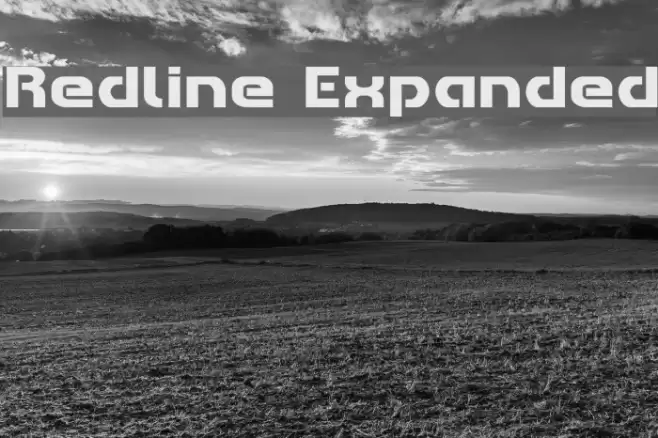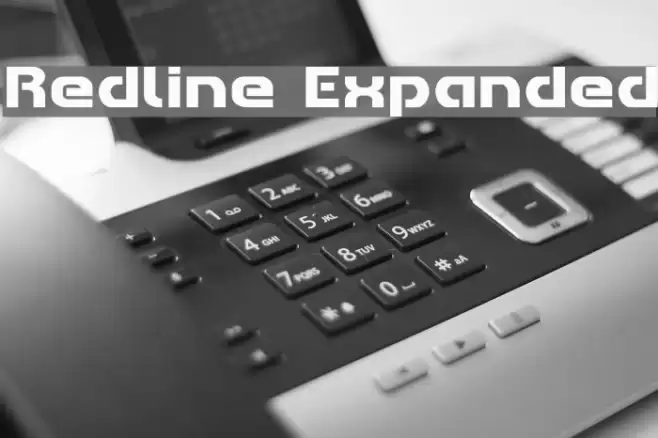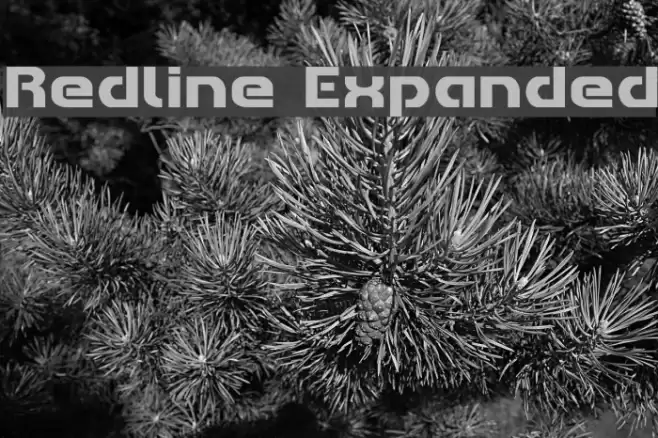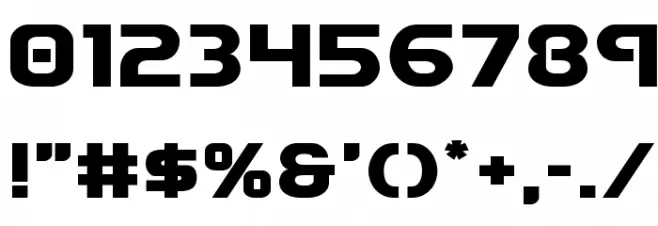
Redline Expanded Font
Redline Expanded Description
This font features a bold and modern design with a strong geometric influence. The characters are wide and have a distinct block-like appearance, making them highly legible and impactful. The uppercase letters are particularly striking, with sharp angles and clean lines that convey a sense of strength and stability. The lowercase letters maintain the same boldness, ensuring consistency across text. Numbers and special characters are designed to match the overall style, providing a cohesive look. The font's expanded width adds to its commanding presence, making it ideal for attention-grabbing headlines and titles.
A bold, geometric font with an expanded width and strong visual impact from Sci-fi fonts.
- Proposed Projects: Ideal for branding, advertising, posters, and any project requiring a bold, modern typeface.